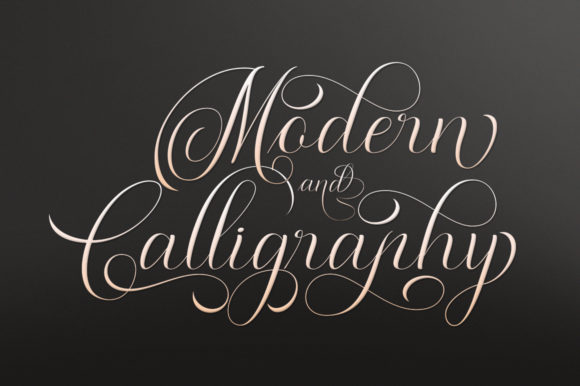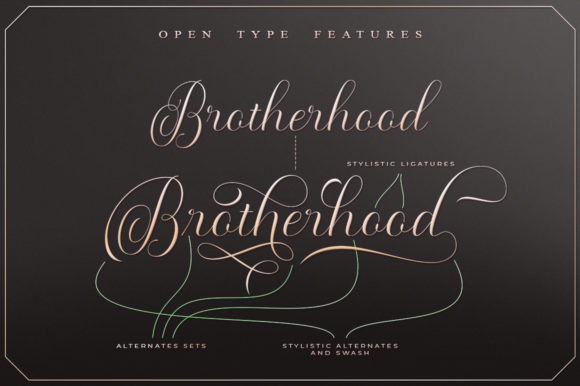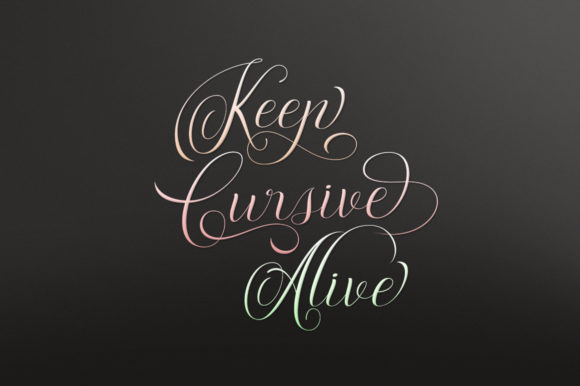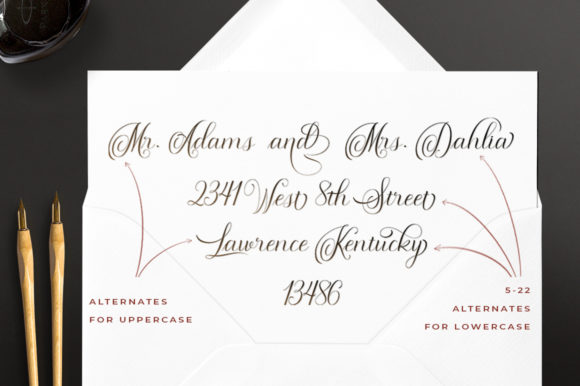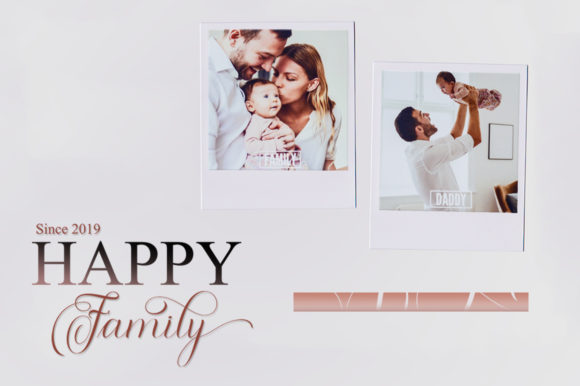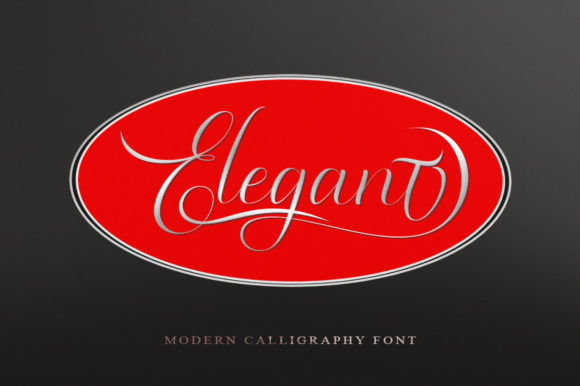
Morden Script Font
About Morden Script Font
The Morden Script is a classic calligraphy font. It comes in 3 italic styles and includes several modern swirls which are perfect for adding an elegant and sweet look at your designs.